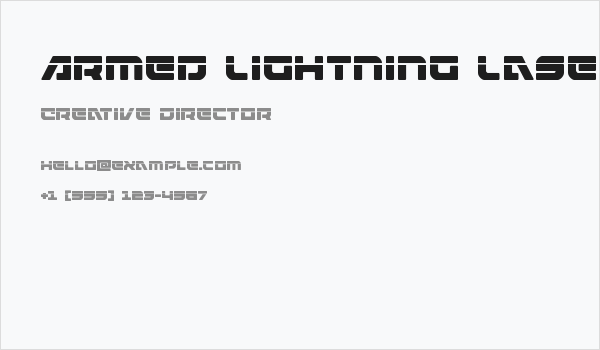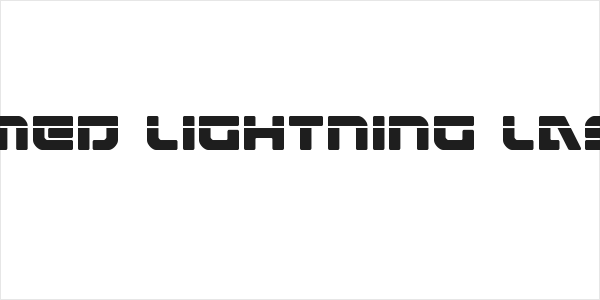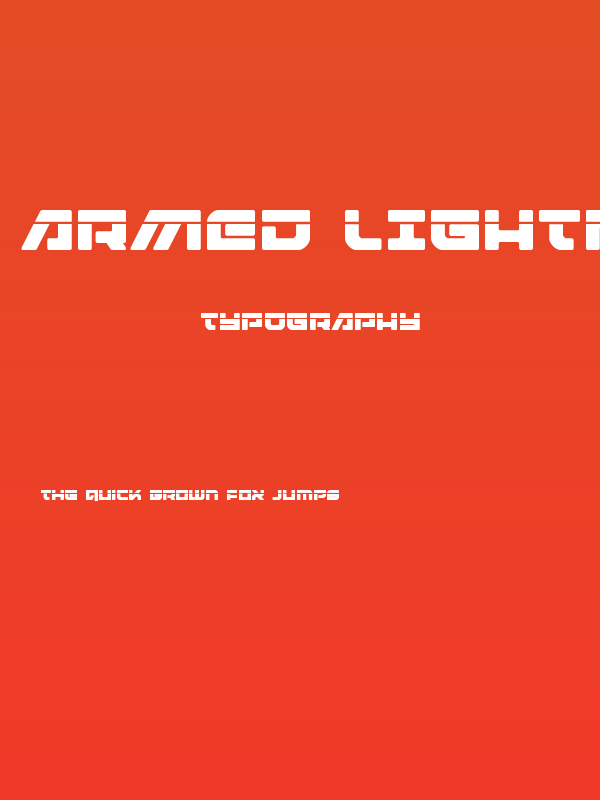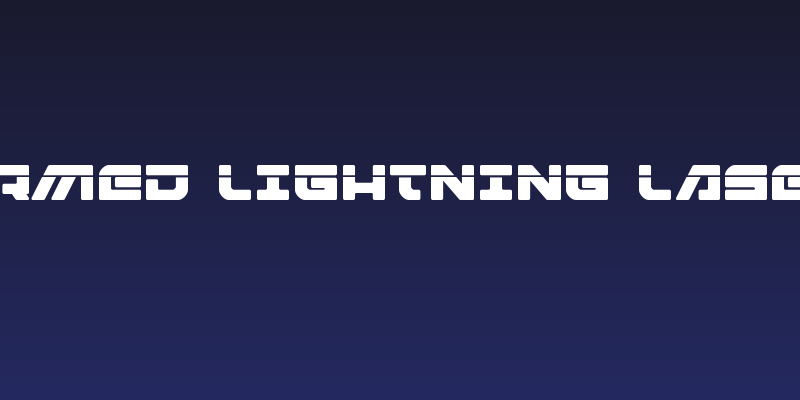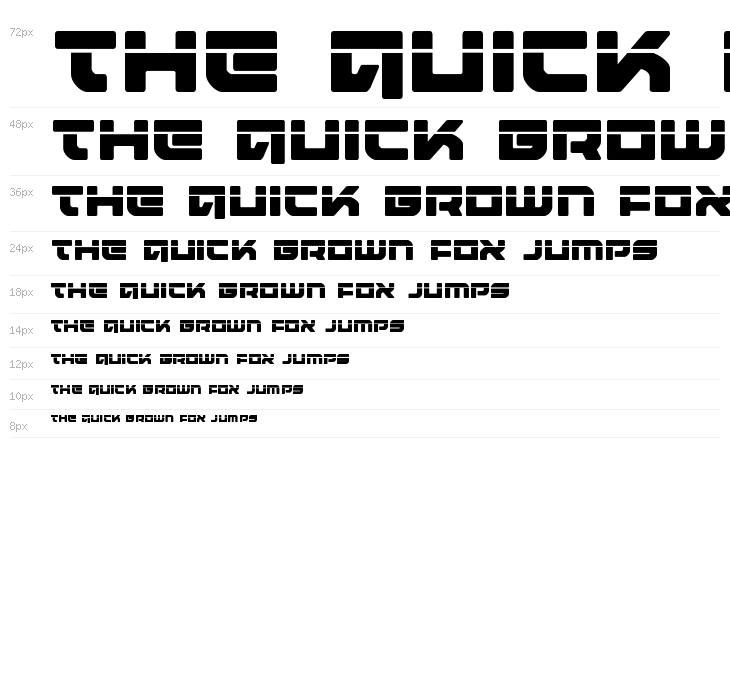
Armed Lightning Laser Font
Armed Lightning Laser Description
This font features a futuristic and bold design, characterized by its geometric and angular shapes. The letters are constructed with sharp edges and cut-out sections, giving it a high-tech and industrial feel. The uppercase and lowercase letters maintain a consistent style, with a strong emphasis on horizontal and vertical lines. The numbers and special characters follow the same design principles, ensuring uniformity across all glyphs. This font's unique style makes it stand out, perfect for projects that require a modern and edgy look.
| Proposed Projects | Ideal for sci-fi movie posters, video game titles, technology branding, and futuristic-themed designs. |